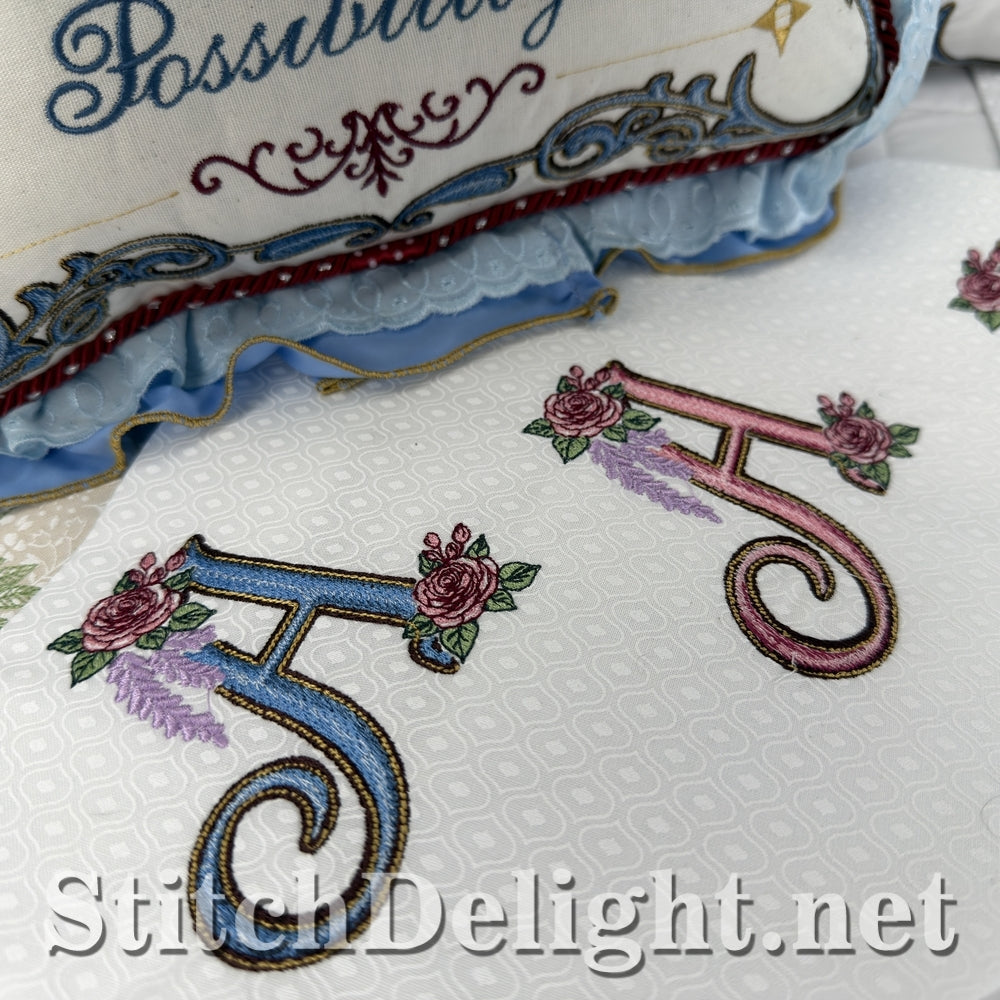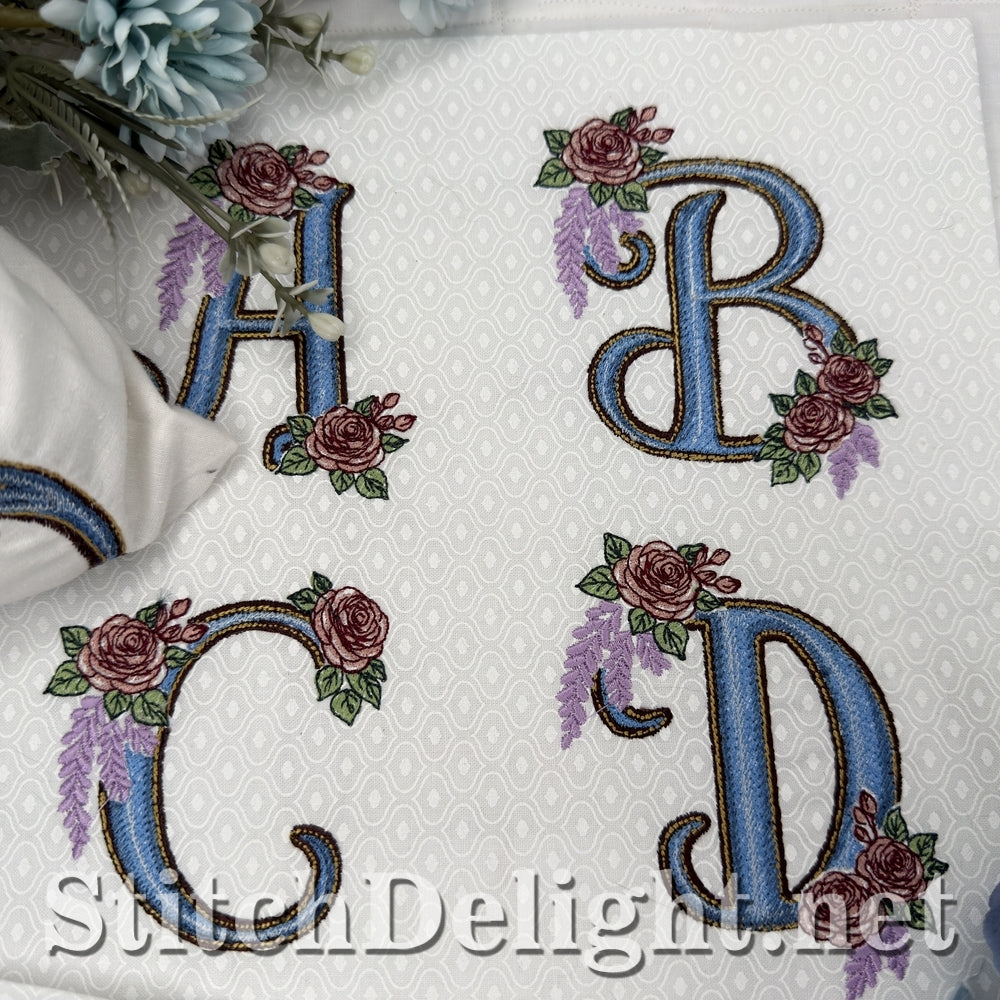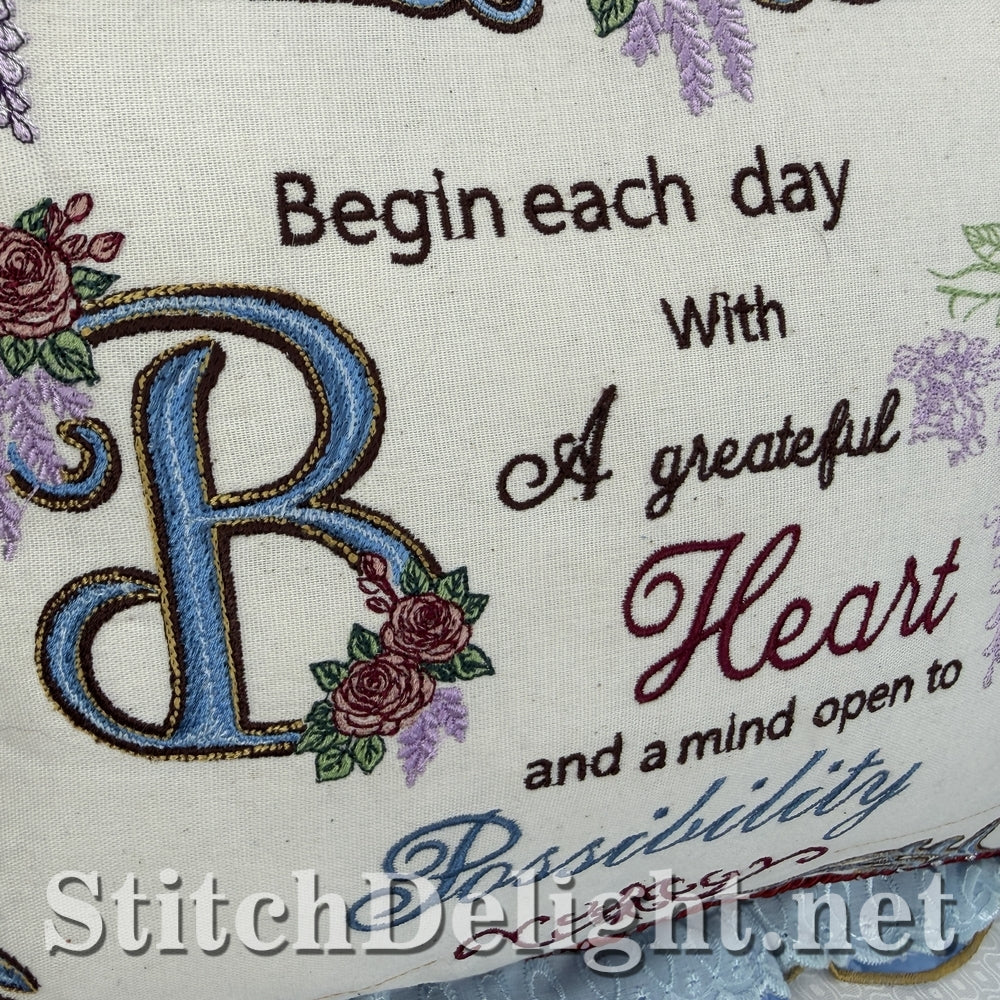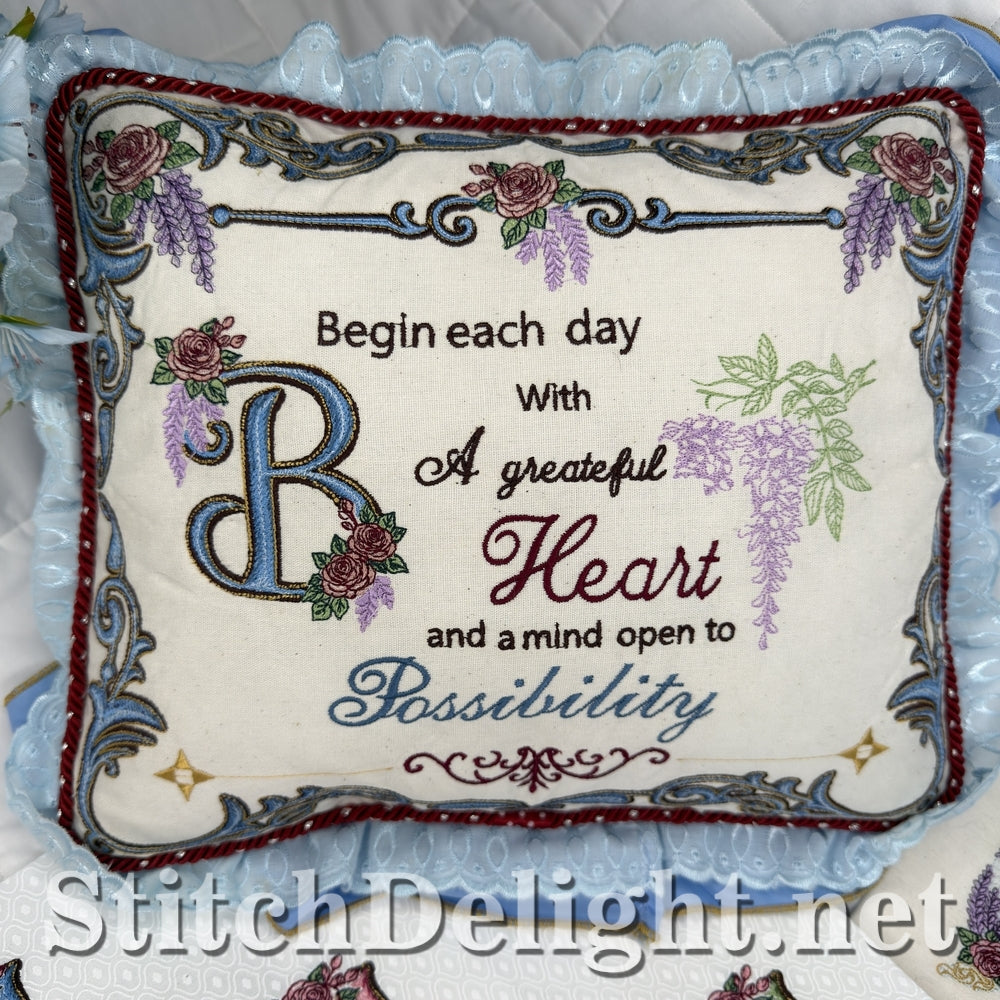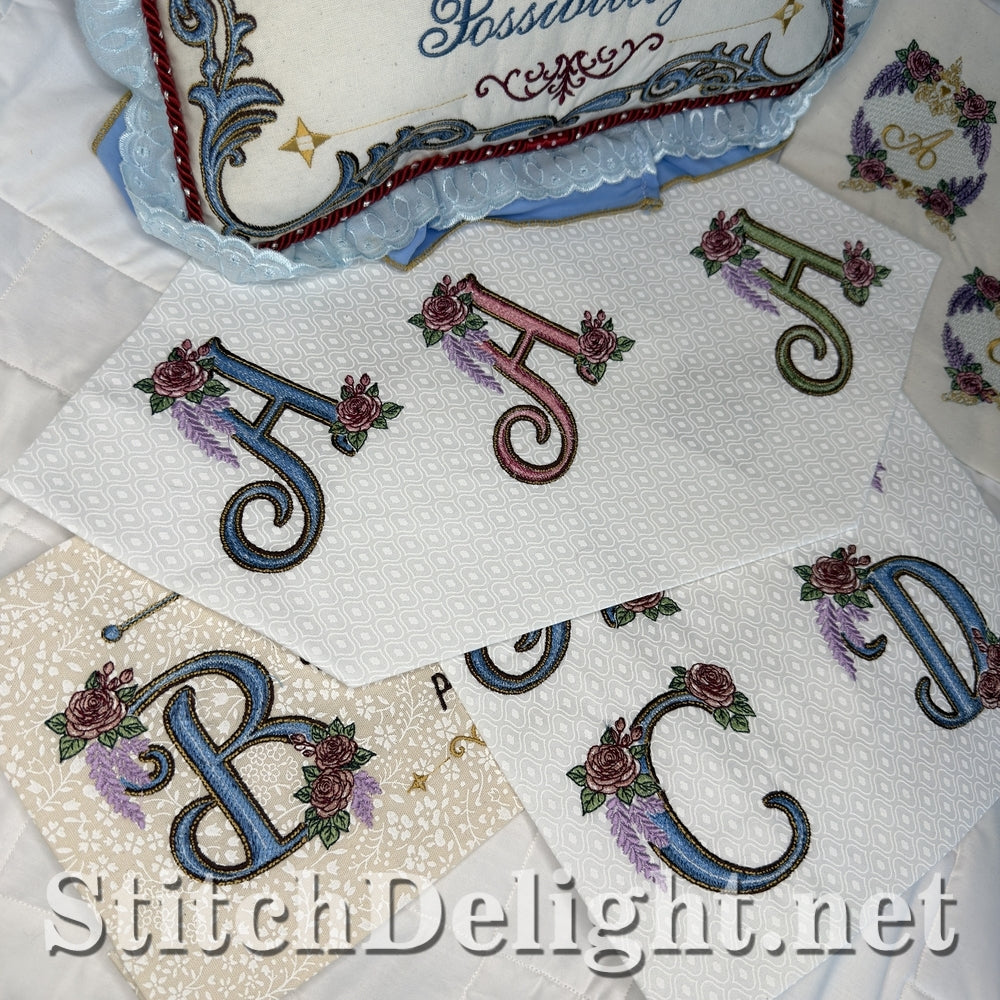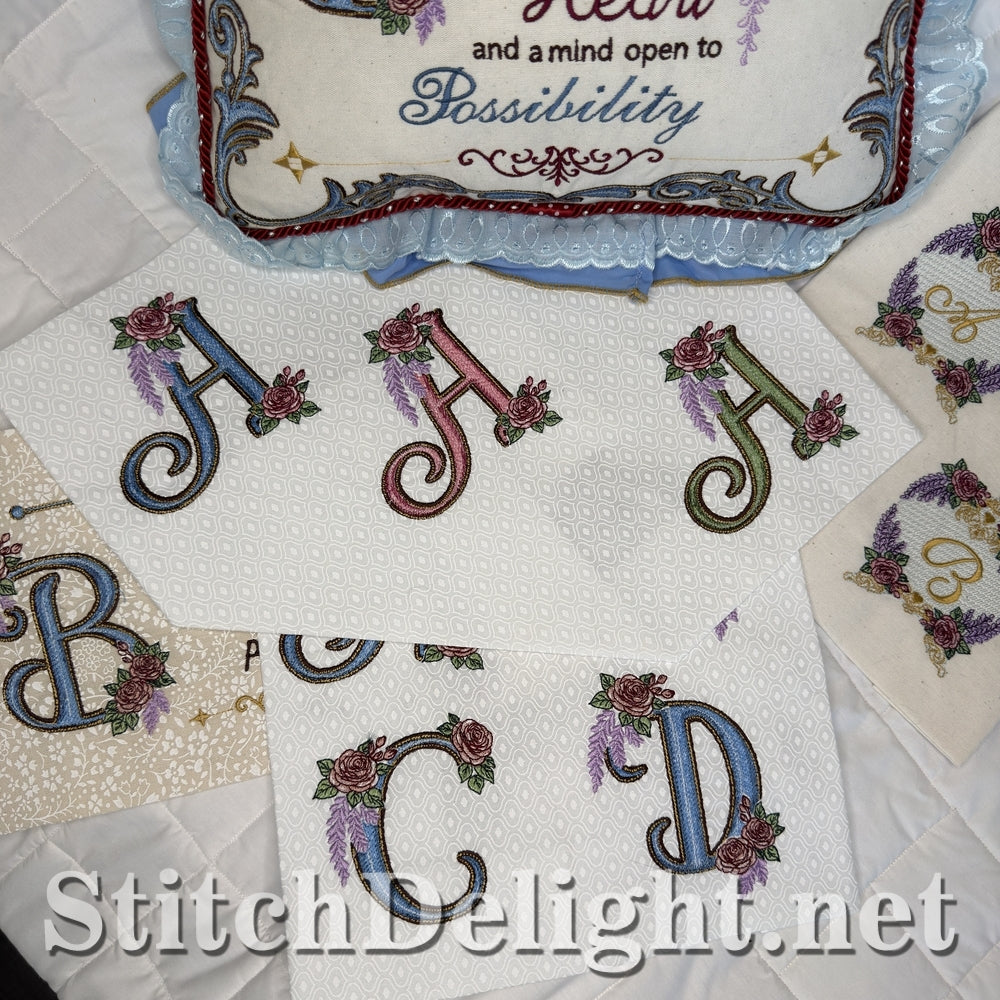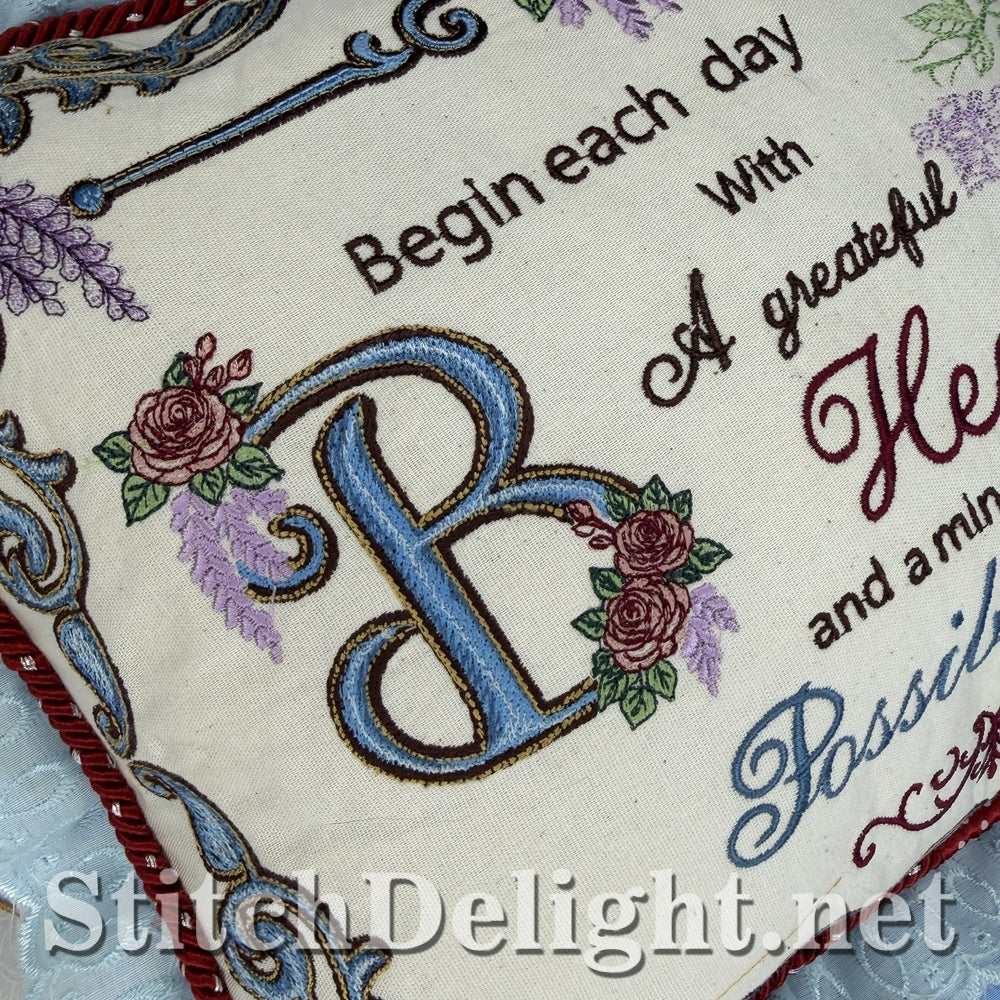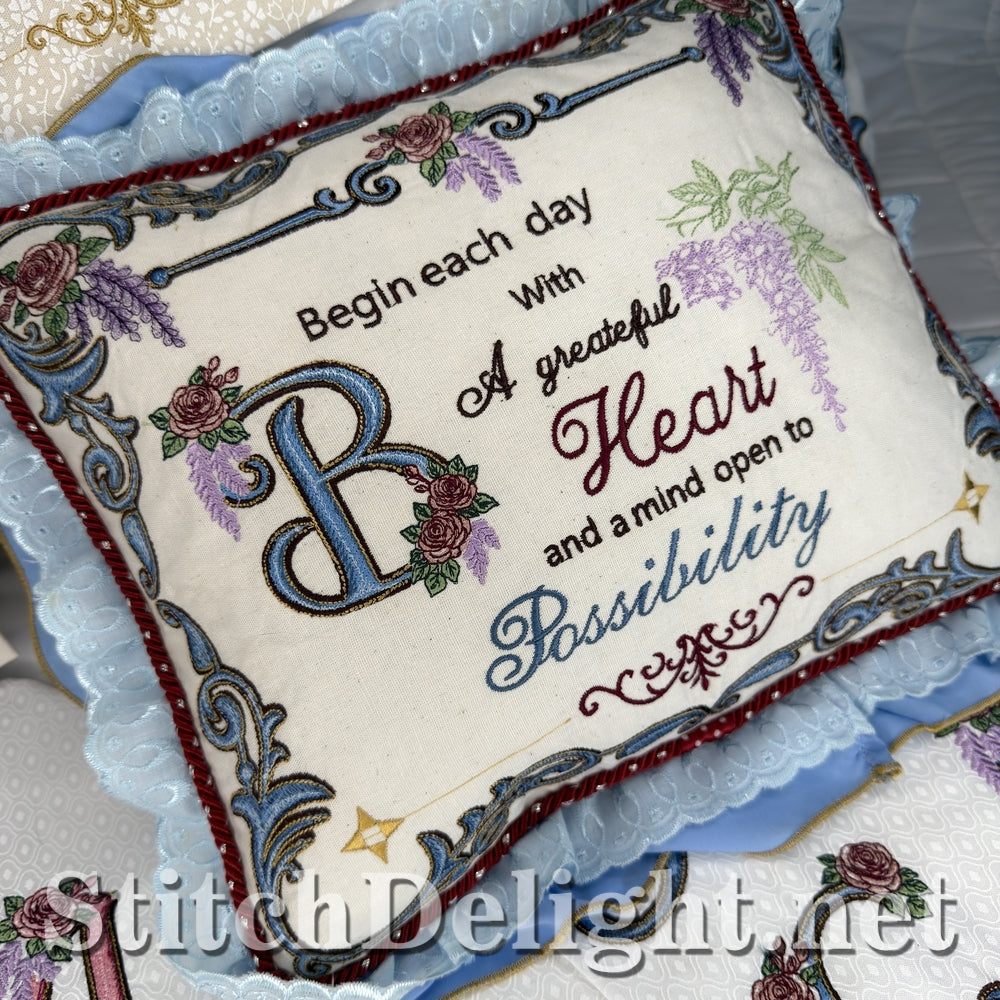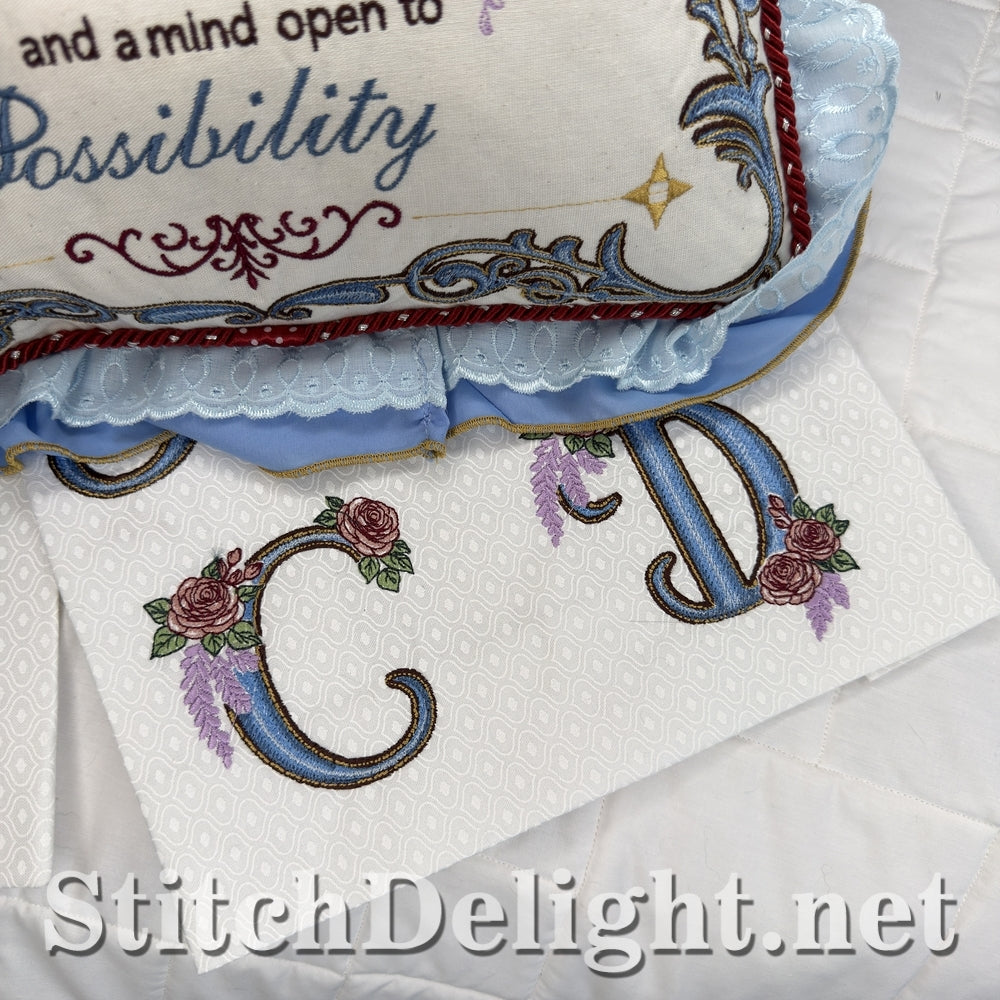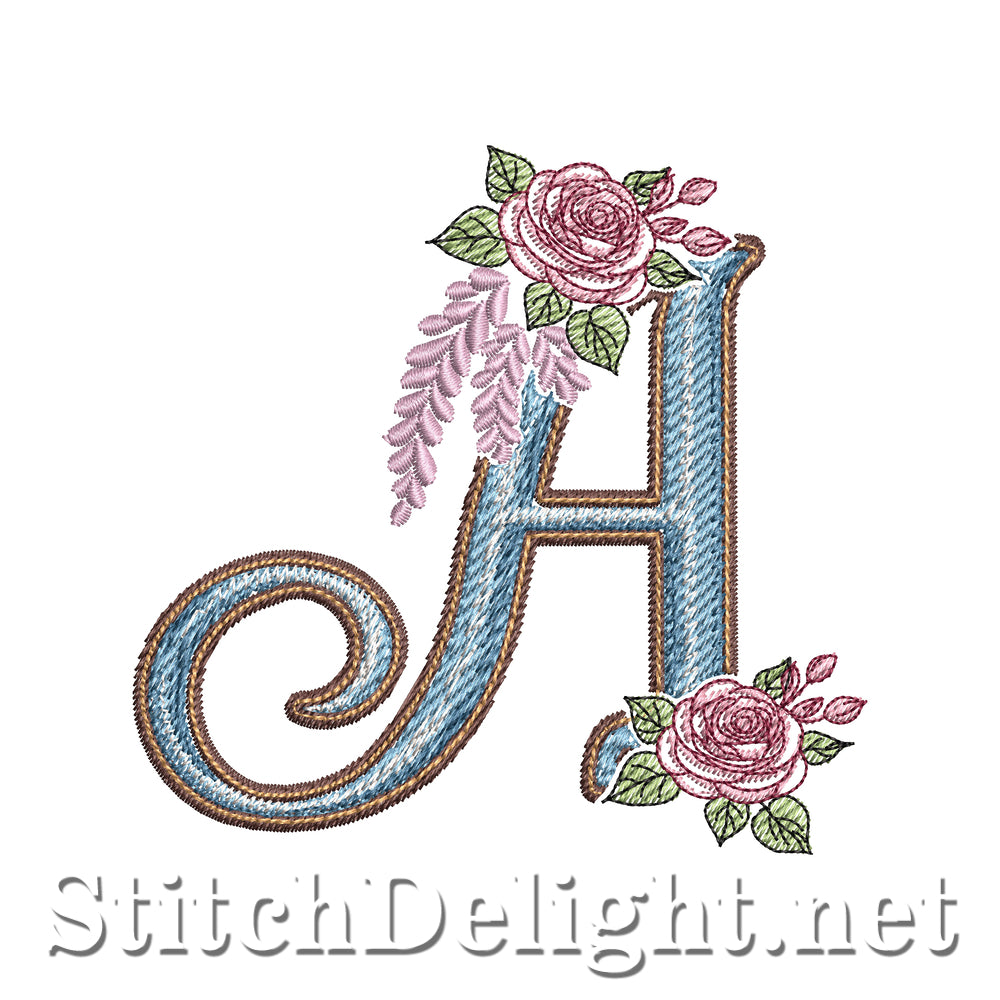
SDS3429 Ashbourne Estate Font
Ashbourne Estate Font is a refined floral embroidery alphabet, designed with graceful wisteria-inspired florals and a soft 3D shaded effect that brings gentle depth and dimension to every letter.
Each character has its own unique flow, with a slightly different letterform structure that gives the font a natural, hand-crafted elegance. The floral detailing is arranged in a distinct wisteria style, offering a fresh take on classic ornamental embroidery lettering.
One of the most versatile aspects of this font is its adaptability in color. Each letter can be stitched in different tones, allowing you to match fabric colors or coordinate seamlessly with your overall project theme — from soft, subtle palettes to richer, more expressive combinations.
Designed for everyday creativity, this font works beautifully across a range of personal and small business projects, including:
Wedding gifts
Wall art
Hoop designs
Pillow covers
With an average letter height of approximately 96mm (≈ 3.8 inches), it offers a balanced presence — detailed enough to stand out, yet versatile enough for a wide range of uses.